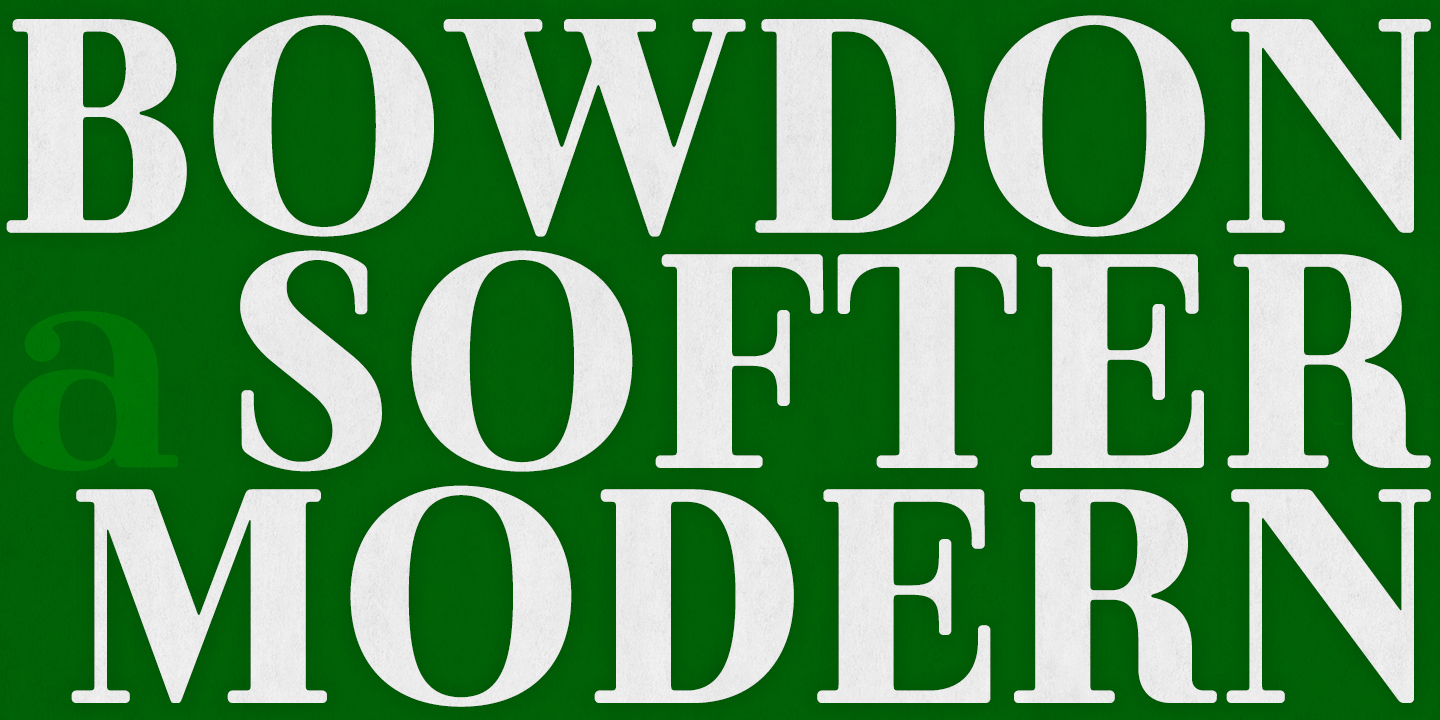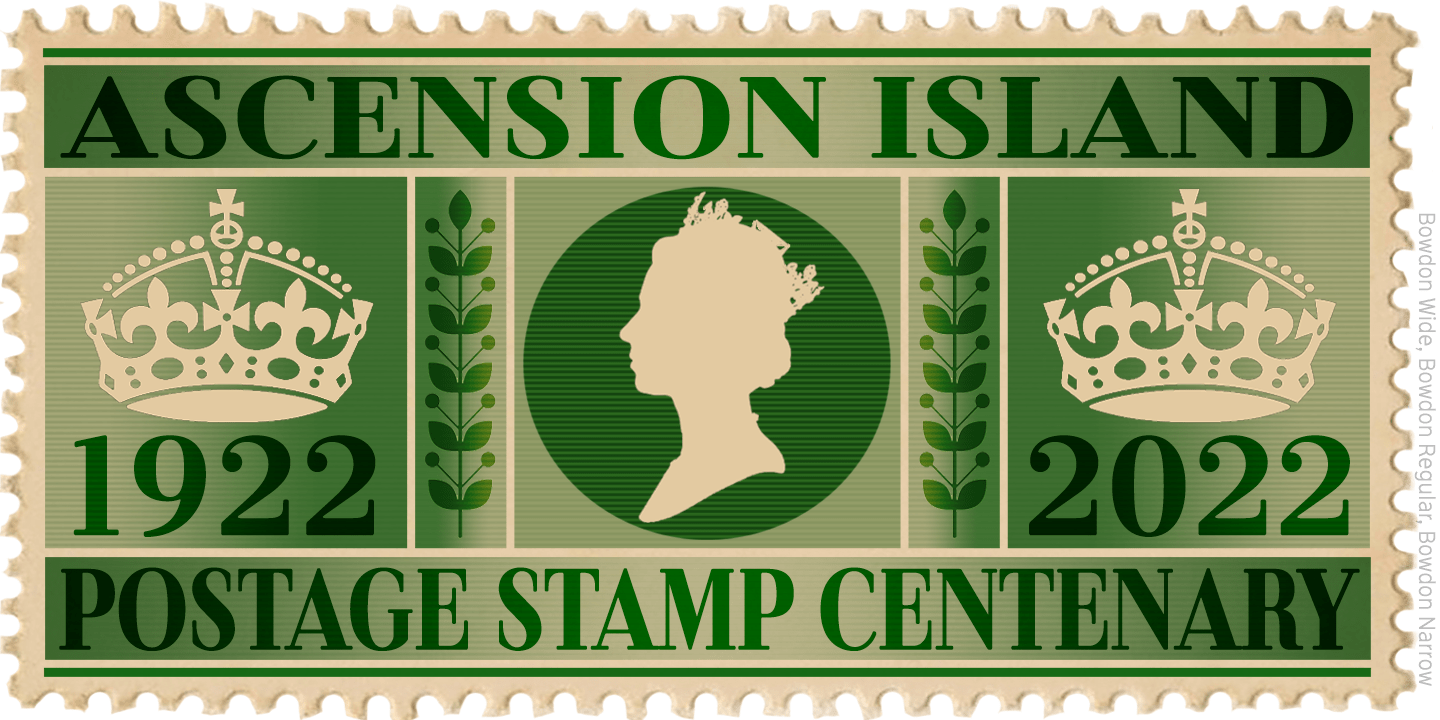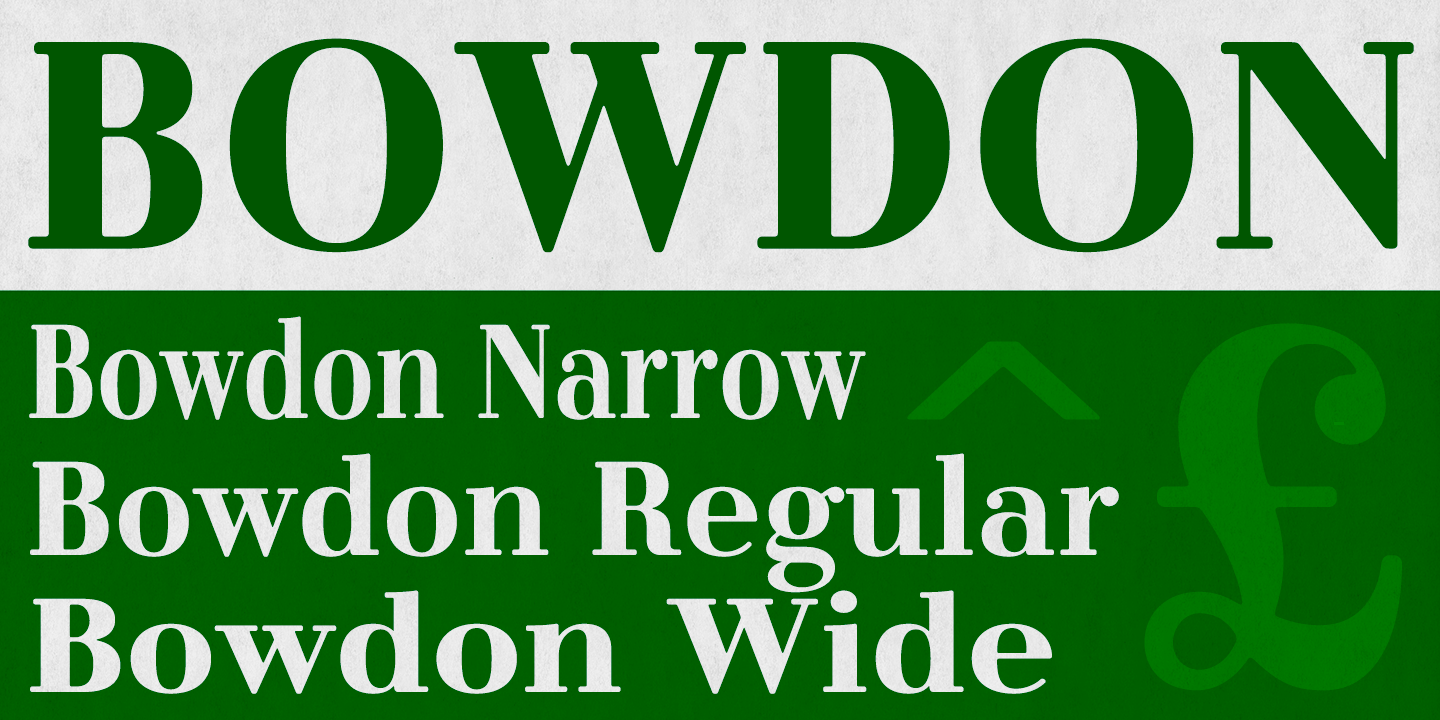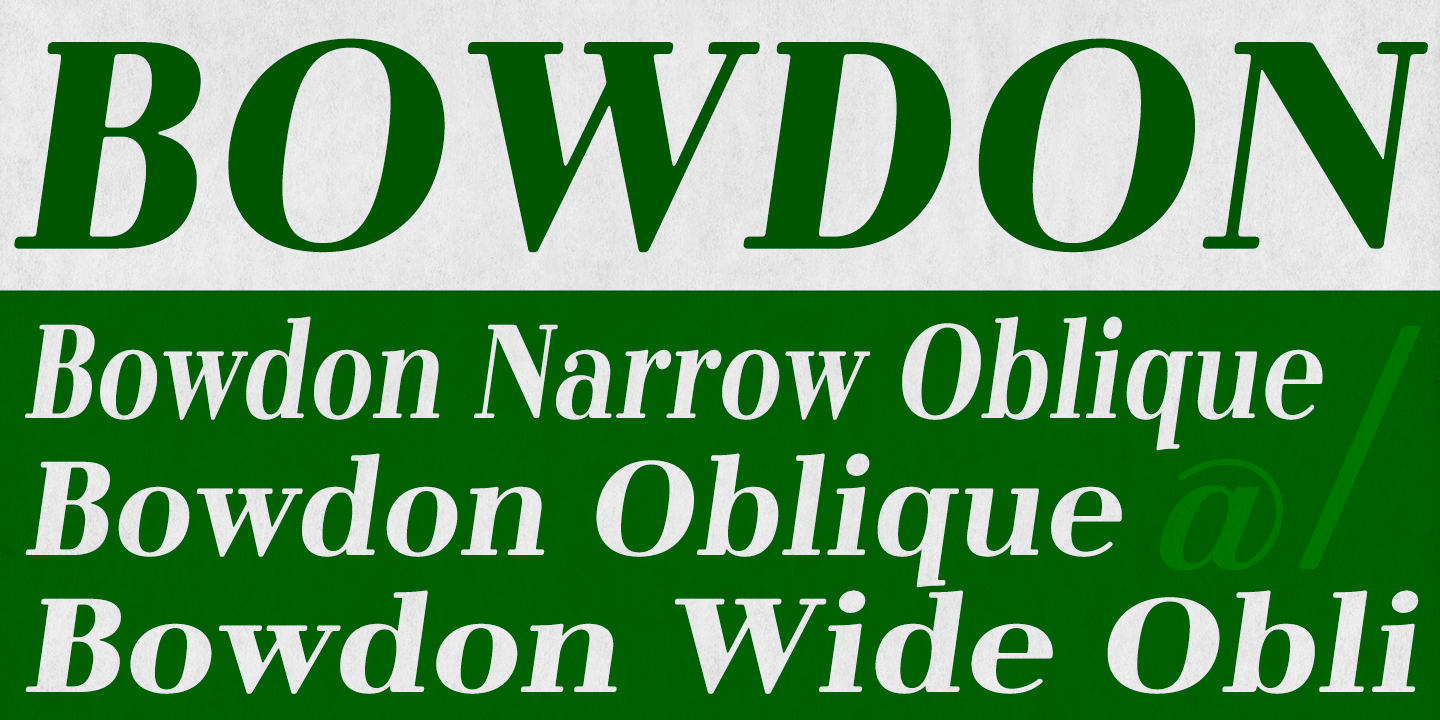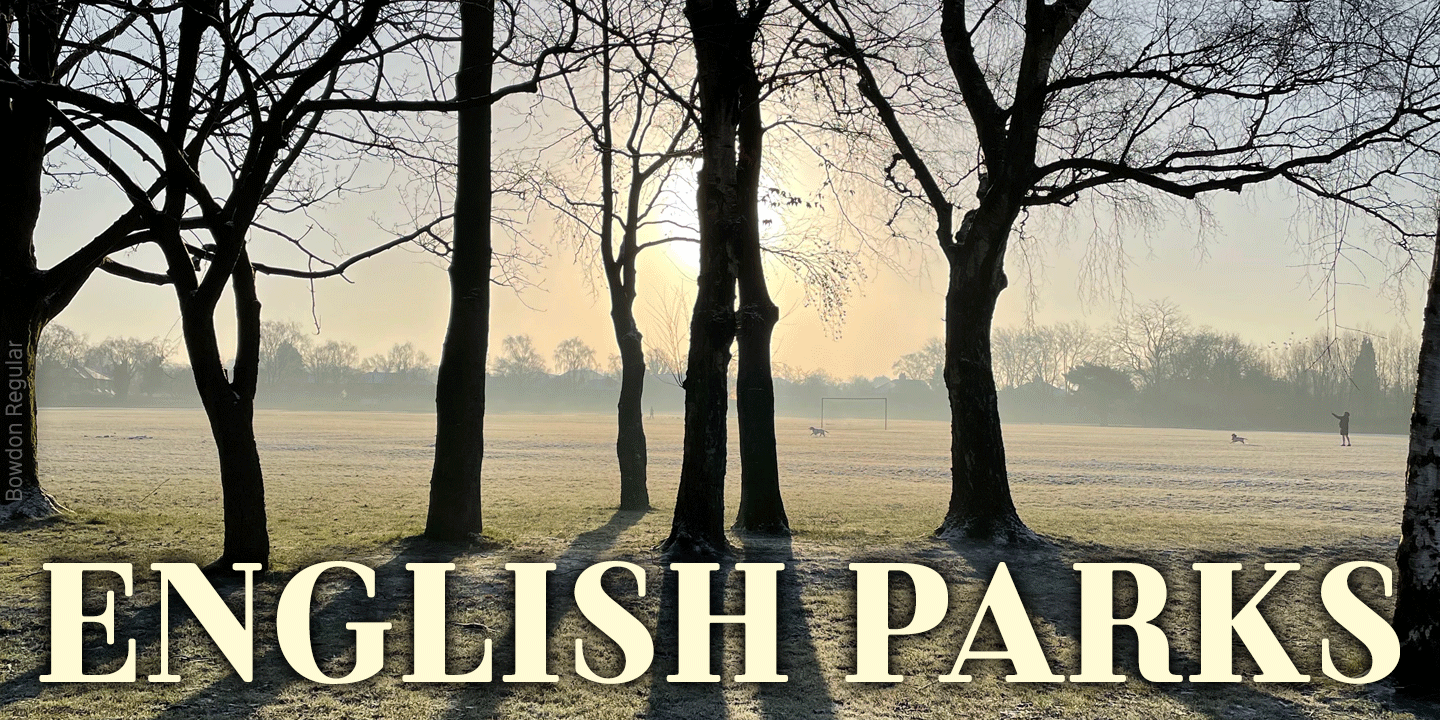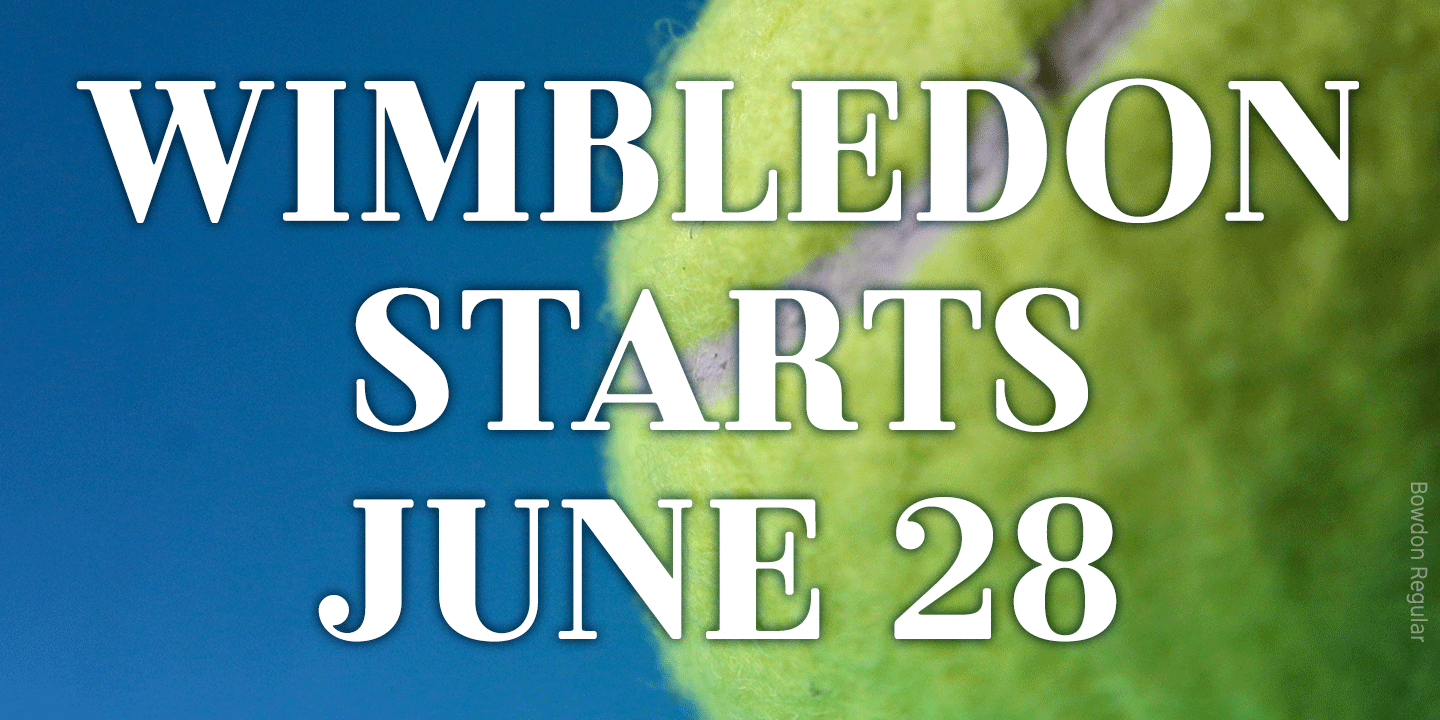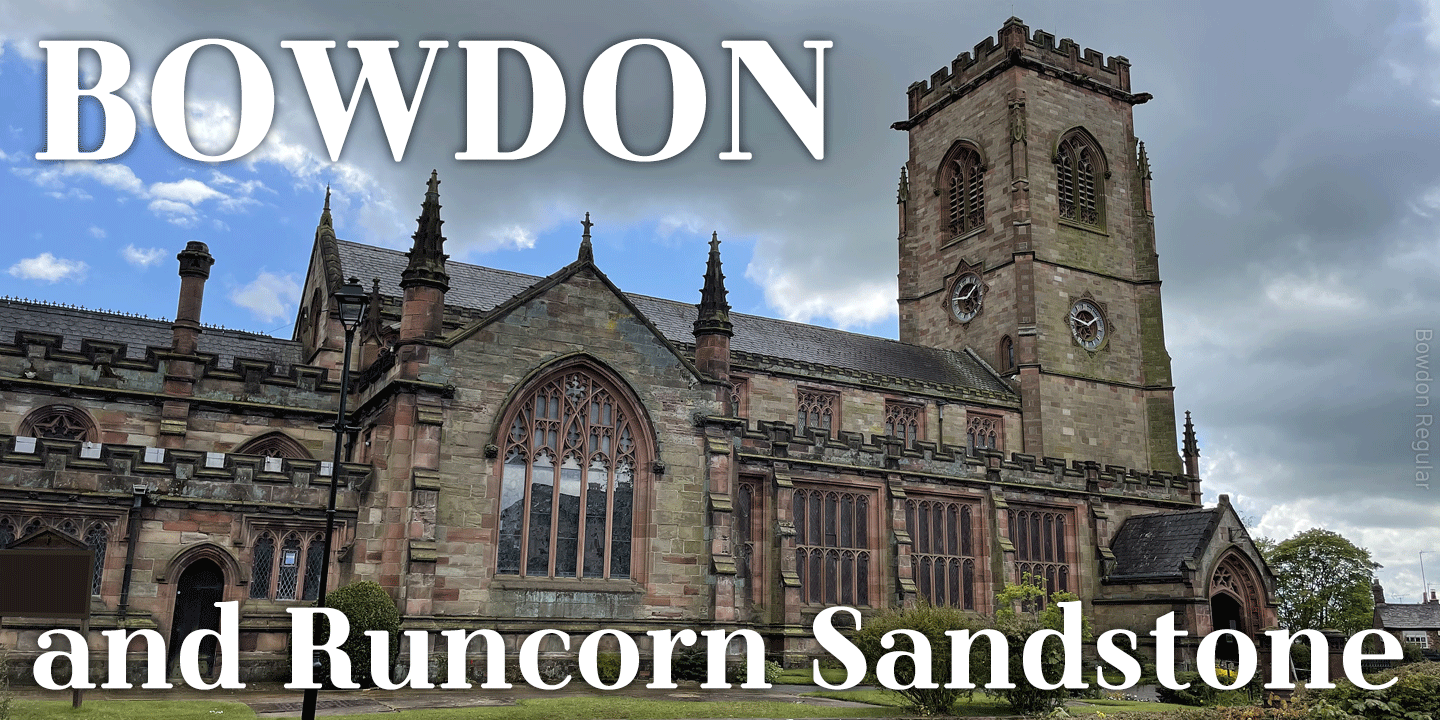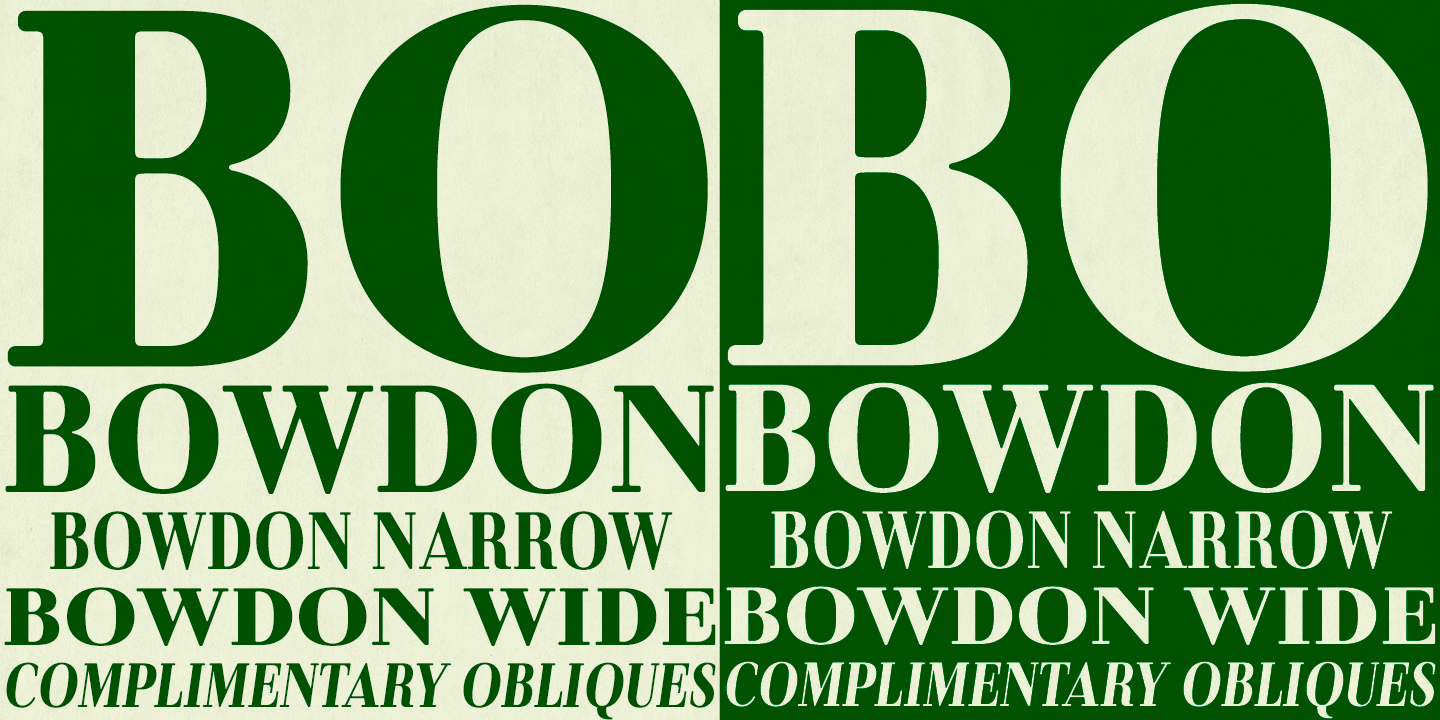
Bowdon
Bowdon is a warm, Bodoni-inspired English Modern, influenced by the 1930s lettering of designer Barnett Freedman.
Slightly rounded corners give characters a printed-look softness, and hairlines are thickened a little to increase legibility at smaller sizes, reducing the harshness and dazzle that can afflict Didone typefaces.
Bowdon is supplied in three widths ? Regular, Narrow and Wide ? and each width is accompanied by a utilitarian oblique rather than a fancy italic. Each font includes a full Latin Extended-A character set and additional oldstyle numerals.